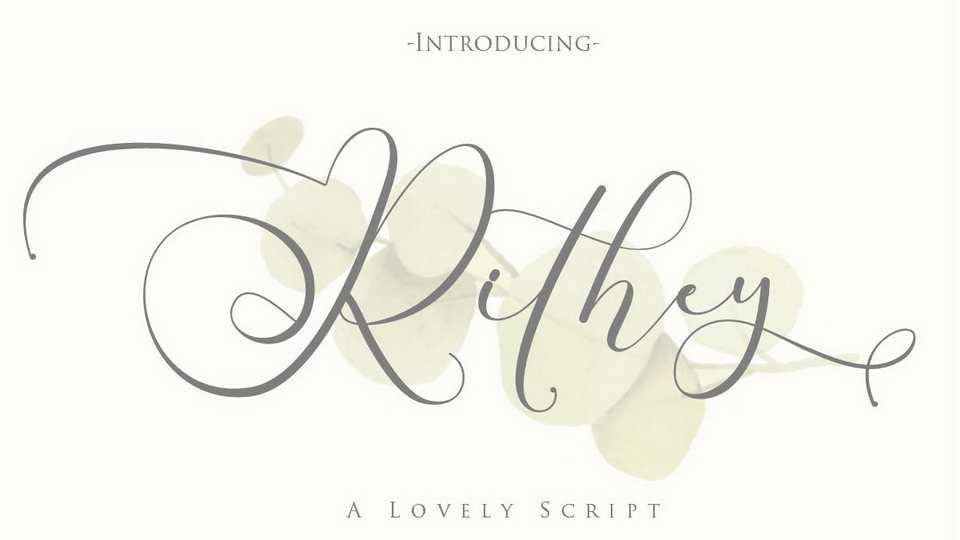
Download Rithey font, a beautiful modern calligraphy script with an incredibly soft feel. Whether you’re looking for fonts for Instagram or calligraphy scripts for DIY projects, Rithey will turn any creative idea into a true piece of art.
Designer: Gilar Studio